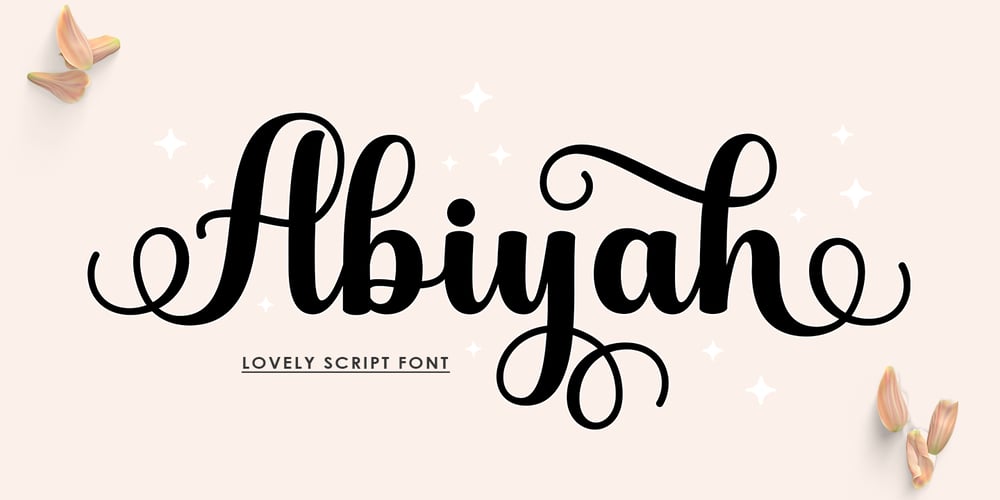
Abiyah Script Font Family was designed by Muammar Kadafi and published by Attract Studio. Abiyah Script contains 2 styles and family package options. Abiyah Script is modern calligraphy design, including Regular and Italic Script. This font is elegant and pretty with swashes. Can used for various purposes. such as logo, product packaging, wedding invitations, branding, headlines, labels, signature, book covers, posters, quotes and more.Abiyah Script features OpenType stylistic alternates, ligatures and International support for most Western Languages is included. To enable the OpenType Stylistic alternates, you need a program that supports OpenType features such as Adobe Illustrator CS, Adobe Indesign & CorelDraw X6-X7, Microsoft Word 2010 or later versions.How to access all alternative characters using Adobe Illustrator:https://www.youtube.com/watch?v=XzwjMkbB-wQAbiyah Script is coded with PUA Unicode, which allows full access to all the extra characters without having special designing software. Mac users can use Font Book , and Windows users can use Character Map to view and copy any of the extra characters to paste into your favourite text editor/app.How to access all alternative characters, using Windows Character Map with Photoshop:https://www.youtube.com/watch?v=Go9vacoYmBwIf you need help or have any questions, please let me know. I’m happy to help :Thanks & Happy Designing!